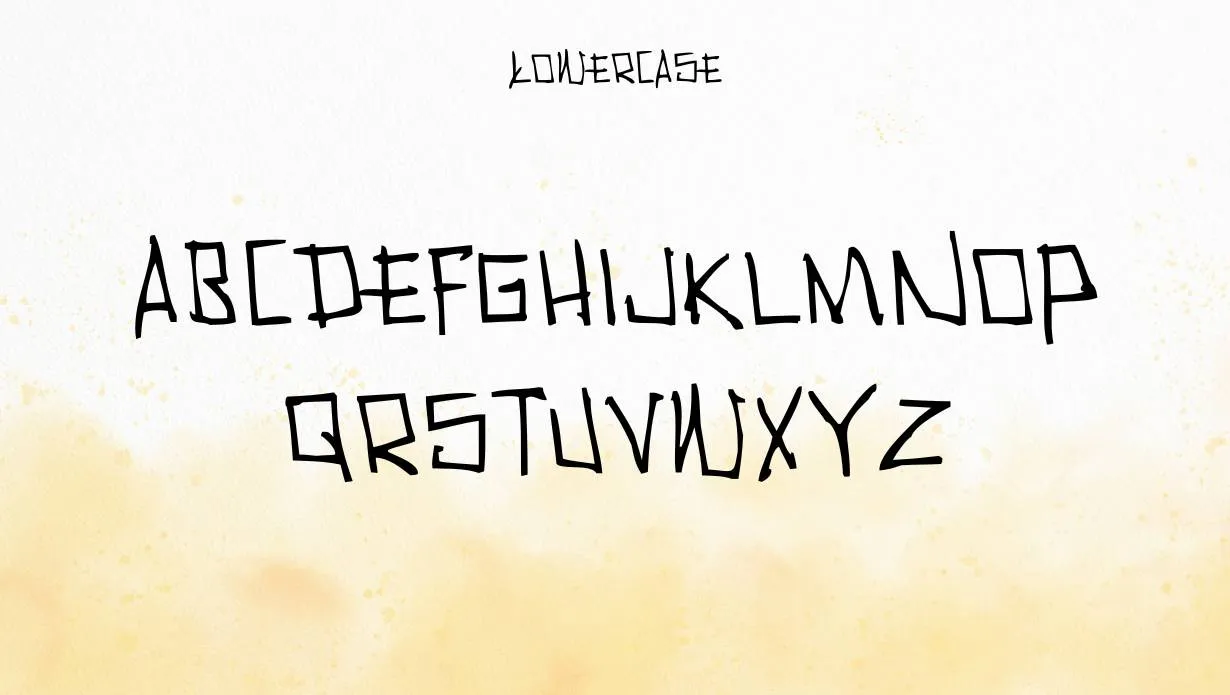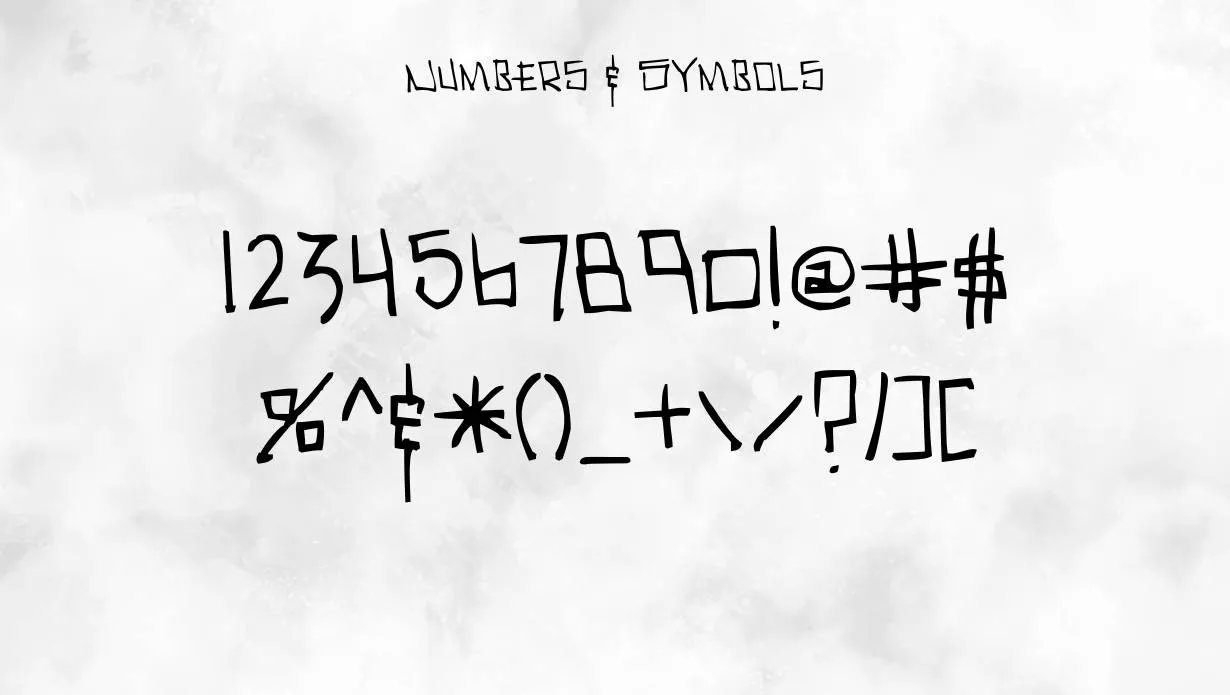
Cholo Font belongs to the Fancy font that was created by Mike Sedillo and published by Apostrophir Lab along with a single style and 212 unique characters. This typeface comes with a graffiti, chunky, and cartoon appearance that makes it perfect for comic books, cartoons, labels, and so on.
| Name | Cholo Font |
| Designer | Mike Sedillo |